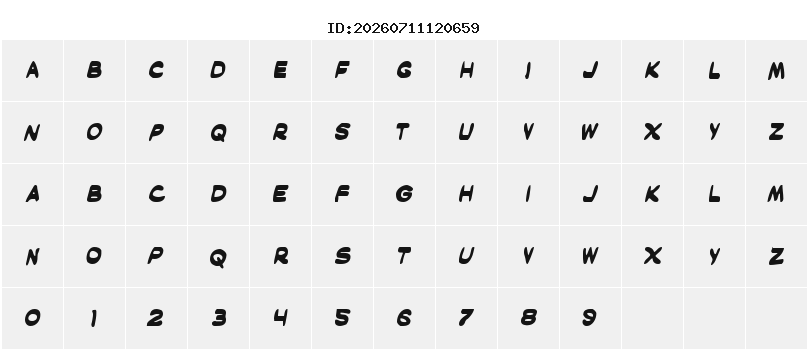
• Font Name: Masked Marvel Bold
About Masked Marvel Bold.ttf
Masked Marvel Bold.ttf is a modern, elegant sans-serif font designed for ultimate readability and visual harmony. Perfect for branding, headlines, web design, and print materials.